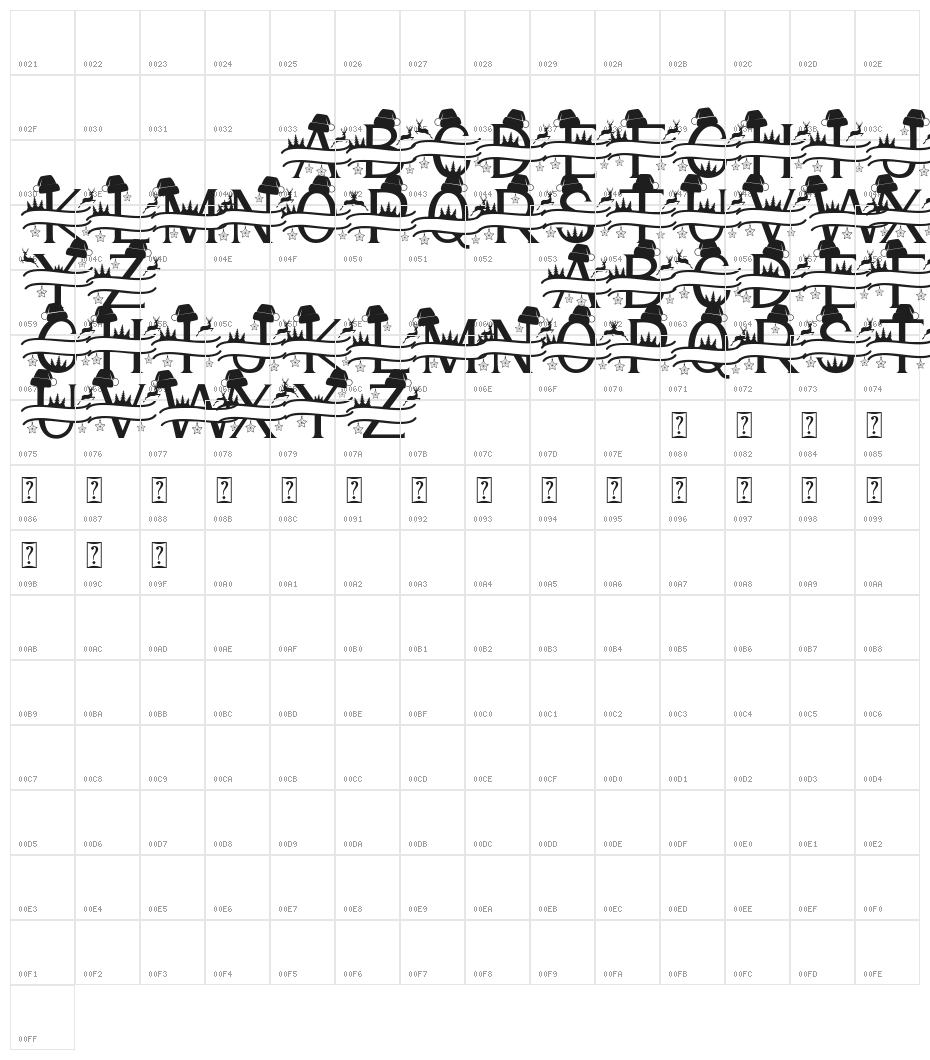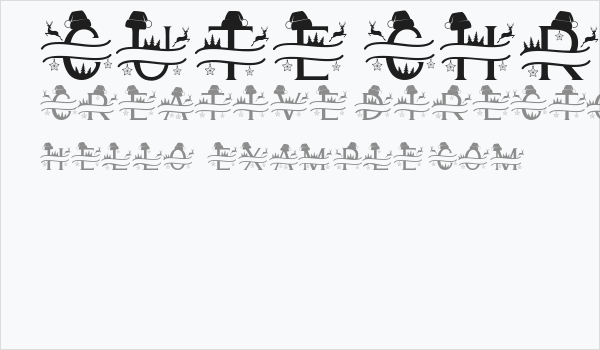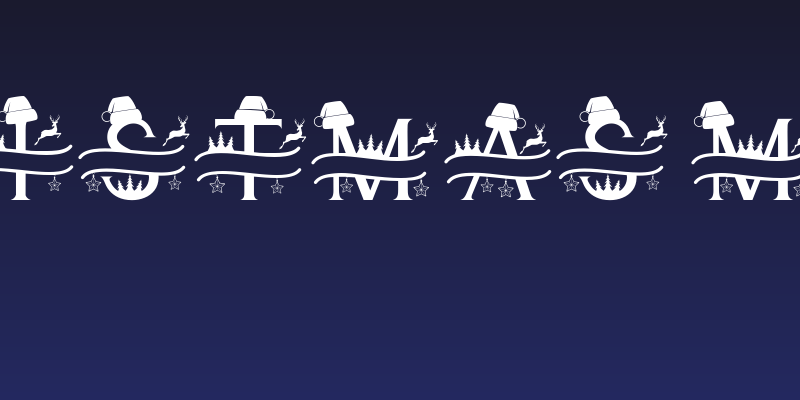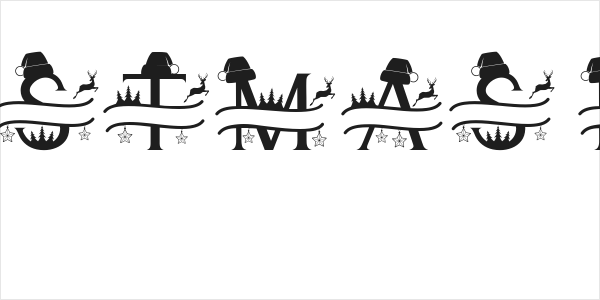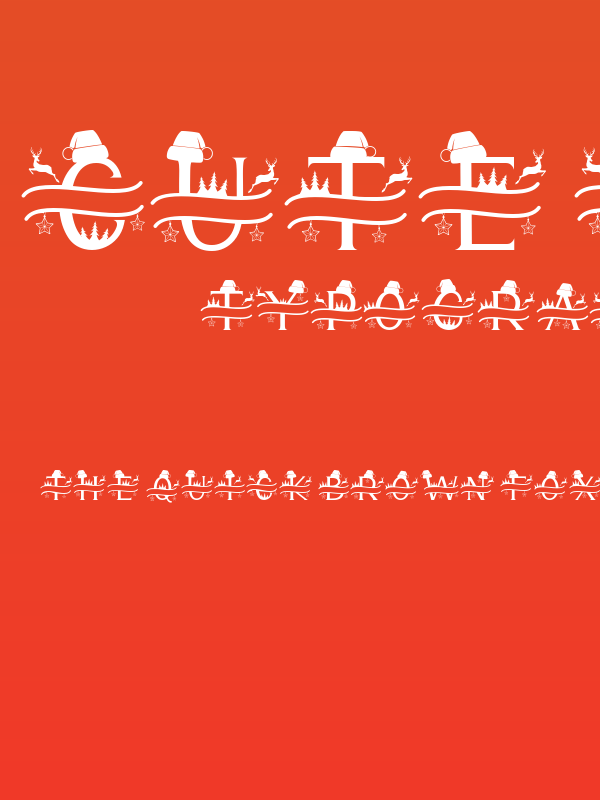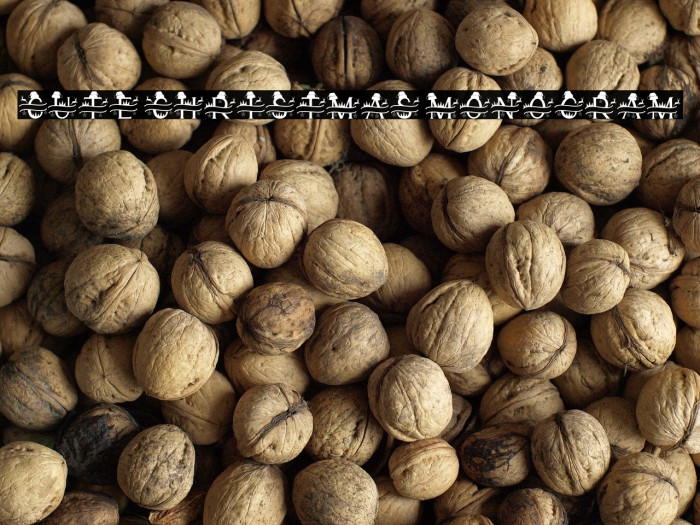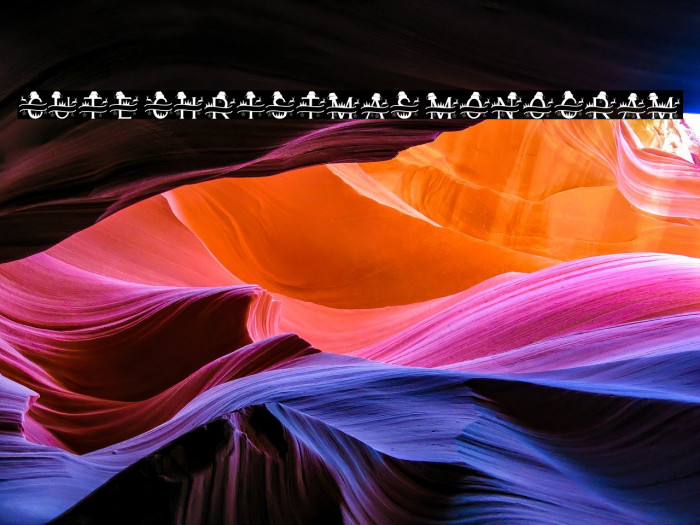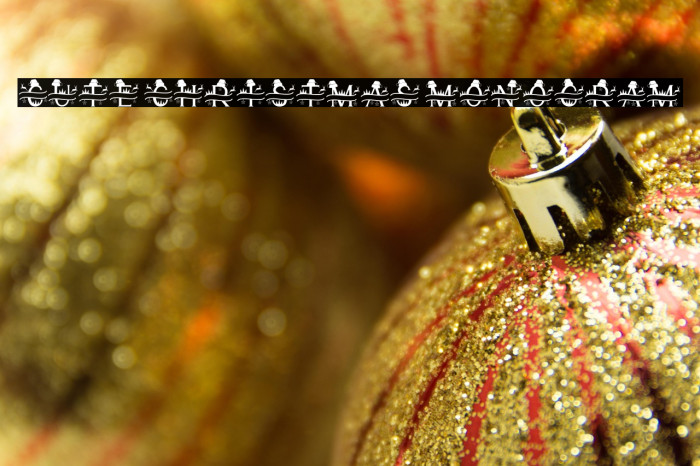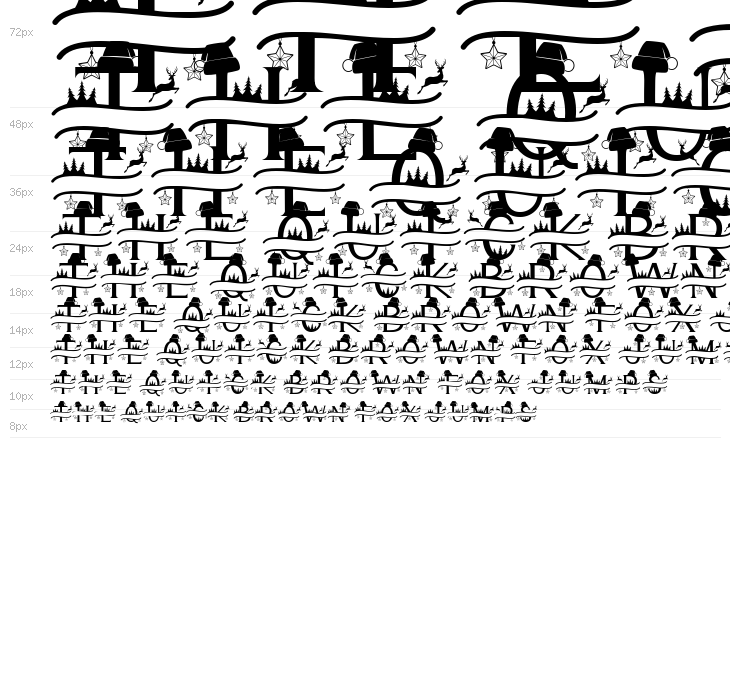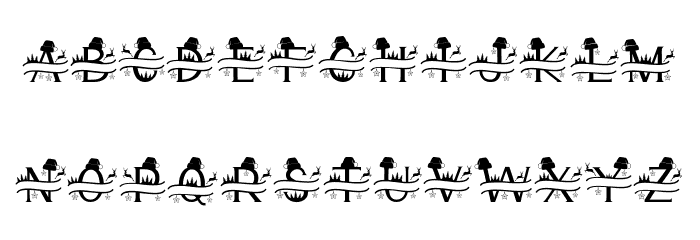
Cute Christmas Monogram Font
This whimsical and festive font features a delightful Christmas theme, incorporating elements like snowflakes, reindeer antlers, and Santa hats into each letter. The uppercase and lowercase letters are adorned with playful holiday motifs, creating a joyful and decorative appearance. The characters are intricately designed, with each letter showcasing unique holiday embellishments that make it perfect for seasonal projects. The font's style is both charming and eye-catching, capturing the essence of Christmas cheer. Its decorative nature makes it ideal for use in holiday cards, festive invitations, and other Christmas-themed designs.
| Proposed Projects | Holiday cards, Christmas invitations, festive banners, seasonal advertisements. |